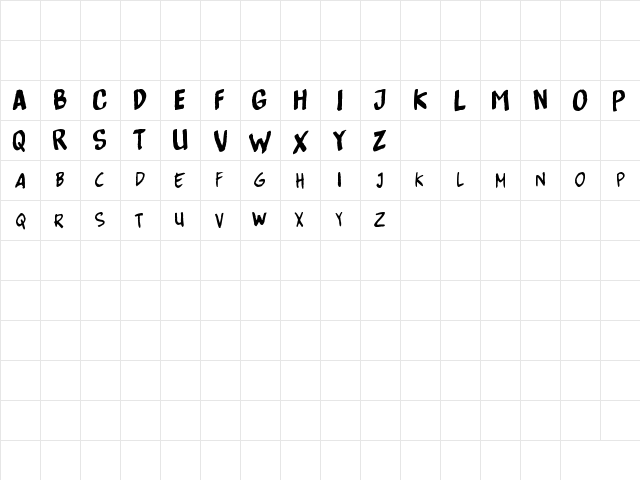
Bottenbreker T.V. Regular
Design Context for Bottenbreker T.V. Typeface
Bottenbreker T.V. is a composed and adaptable typeface that performs quietly and consistently across a wide range of design contexts.